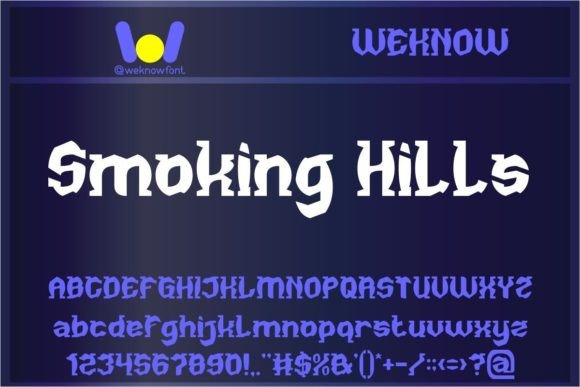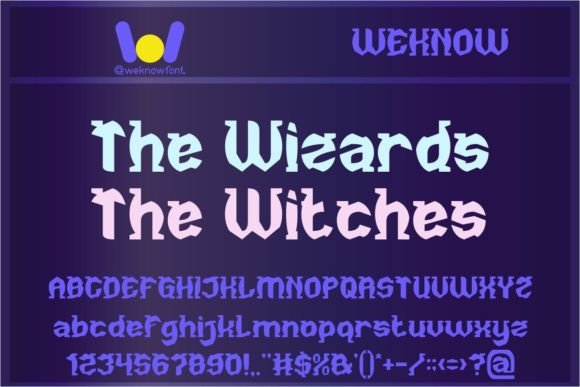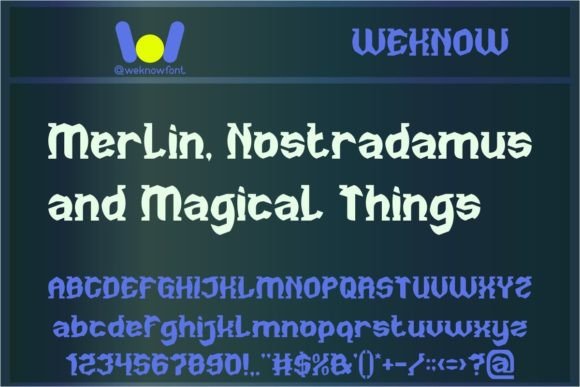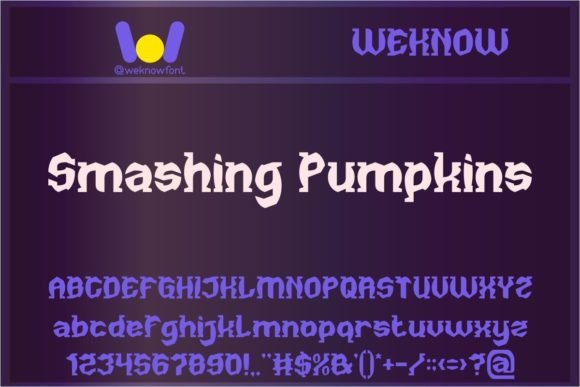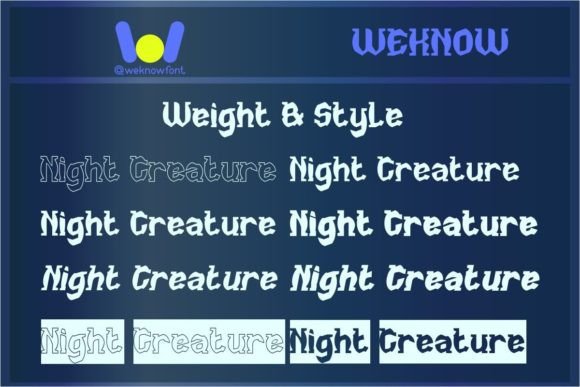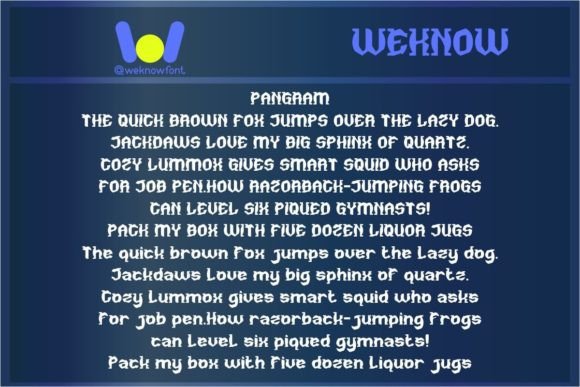
Introduction to Night Creature Font
You’ve just landed on a design project, and the client wants something that screams magic. You browse through your font library, and a spark of inspiration hits you – the Night Creature Font. This enchanting display font is your ticket to crafting a visual masterpiece that will transport your audience to a world of fantasy and wonder.
As designers, we’re always on the lookout for high-quality design resources that can elevate our creative projects. The Night Creature Font is a valuable addition to any design arsenal, offering a unique charm that can be tailored to suit various design needs. With its free download option and transparent background, this font is a game-changer for designers who want to add an extra layer of sophistication to their work.
Key Features of Night Creature Font
- High-quality, unique design ideal for creative projects and design resources.
- Unique, hand-drawn style that adds a touch of whimsy and creativity to any design project.
- Perfect for designers looking for a high-quality, free design resource to elevate their creative projects.
Honest Review: Night Creature Font
I recently stumbled upon the Night Creature Font, and I must say it’s been a game-changer for my creative projects. With a free download option, it’s become a valuable design resource in my collection.
- High-quality typography that’s perfect for dark-themed designs ✨
One thing that works particularly well with the Night Creature Font is its ability to add an eerie, mystical feel to designs. It’s perfect for creating immersive experiences, especially in horror-themed or fantasy-based projects. The font’s unique characters and symbols also make it an excellent choice for titles, logos, and other creative elements.
However, I did notice that the font may not be suitable for more traditional or conservative designs. The Night Creature Font is quite bold and attention-grabbing, which may not be the best fit for every project.
Overall, I’m thoroughly impressed with the Night Creature Font. Its high quality, versatility, and creative potential make it a valuable addition to any design collection. While it may have some limitations, it’s definitely worth checking out for your next creative project.
The Night Creature Font is suitable for a variety of creative projects, including posters, flyers, business cards, and social media graphics. Its unique design and high-quality appearance make it a popular choice among designers.
Getting the Most Out of Night Creature Font
To get the most out of Night Creature Font, experiment with different font sizes, colors, and combinations to achieve the desired effect. This design resource can add a touch of elegance and sophistication to your designs, making it a valuable addition to your design toolkit.